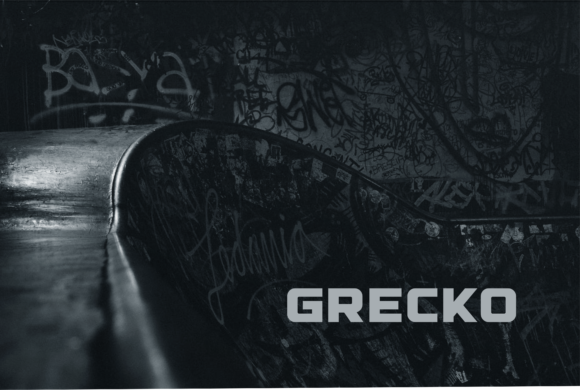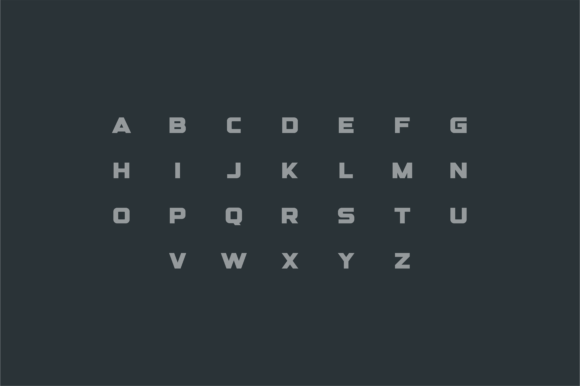
The Designer’s Delight: Exploring the Bold World of Grecko Font
I’ll never forget the time I was working on a branding project for a trendy new cafe. My client wanted a bold, eye-catching font that would make their logo stand out. I spent hours scouring the internet for the perfect font, but nothing seemed quite right. That was until I stumbled upon Grecko Font. With its thick, bold letters, it was love at first sight! In this article, I’ll share my experience with Grecko Font, its features, and how to make the most of it in your designs.
An Honest Review of Grecko Font
- ✨ Bold and eye-catching: Grecko Font is perfect for making a statement with your designs.
- ✅ Highly versatile: It can be used for a wide range of projects, from logos and branding to posters and social media graphics.
- 💥 Endless variations: With its range of OpenType features and glyphs, you can create countless unique variations of your text.
The Not-So-Good Stuff
- 🤔 Limited use for body text: Grecko Font is a display font, so it’s not suitable for long blocks of text.
- ⚠️ May not be suitable for small sizes: Due to its bold nature, Grecko Font can become overwhelming at small sizes.
The Backstory of Grecko Font
Grecko Font was designed with the goal of creating a bold, attention-grabbing display font. Its creator wanted to craft a font that would be perfect for designers looking to make a statement. With its thick letters and endless variations, Grecko Font has become a go-to choice for designers around the world.
| Font Name | Grecko Font |
| Author | Letterna |
| What type of font is Grecko Font? | Grecko Font is a bold display font. |
| Is Grecko Font suitable for body text? | No, Grecko Font is best used for headlines and titles. |